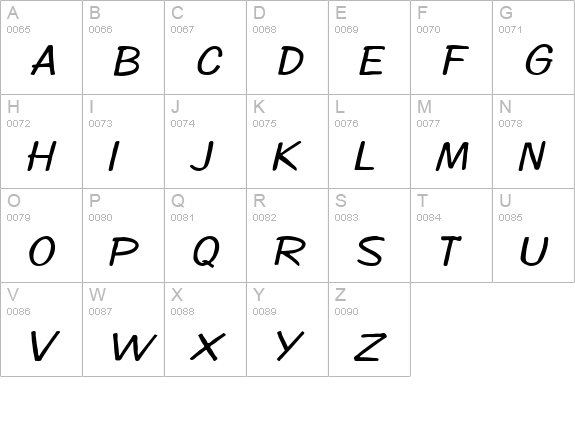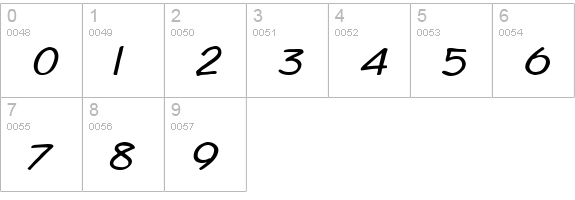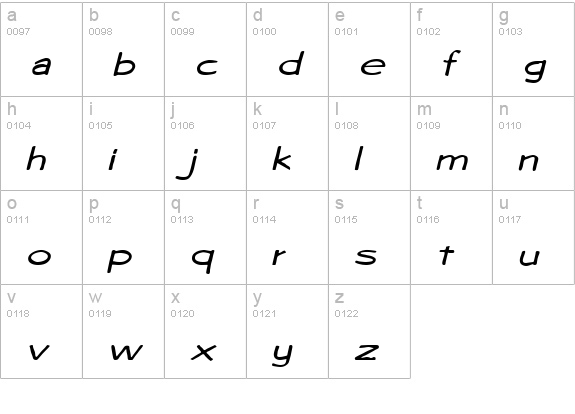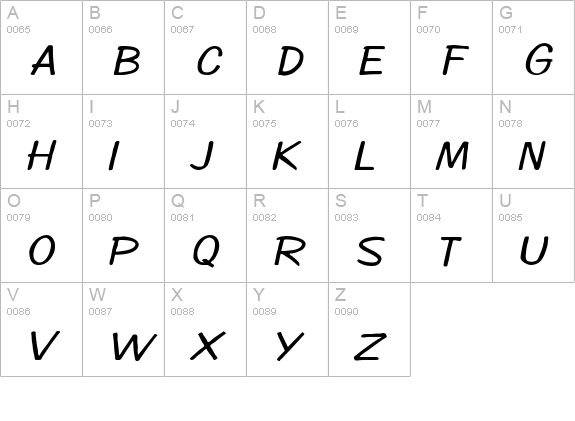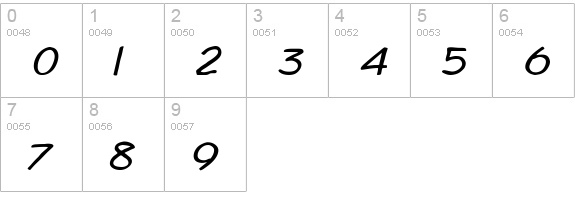
CopybookExtended Italic Font Details
CopybookExtended Italic is a distinctive, italic variant in the CopybookExtended typeface family \xE2\x80\x94 well suited to design and typography projects.
CopybookExtended Italic is a sophisticated and elegant font that exudes a sense of refinement and grace. Its italicized style adds a touch of flair and class to any design project. The sleek and modern look of this font makes it perfect for a wide range of applications, from branding and advertising to invitations and social media graphics. What sets CopybookExtended Italic apart is not only its aesthetic appeal but also its versatility. Whether you're designing a sleek and professional business card or a whimsical greeting card, this font can adapt to suit any style or tone. Best of all, CopybookExtended Italic is free to download at FontsMarket.com. This means you can enhance your projects with this stunning font without breaking the bank. So why wait? Download CopybookExtended Italic today and elevate your designs to the next level.